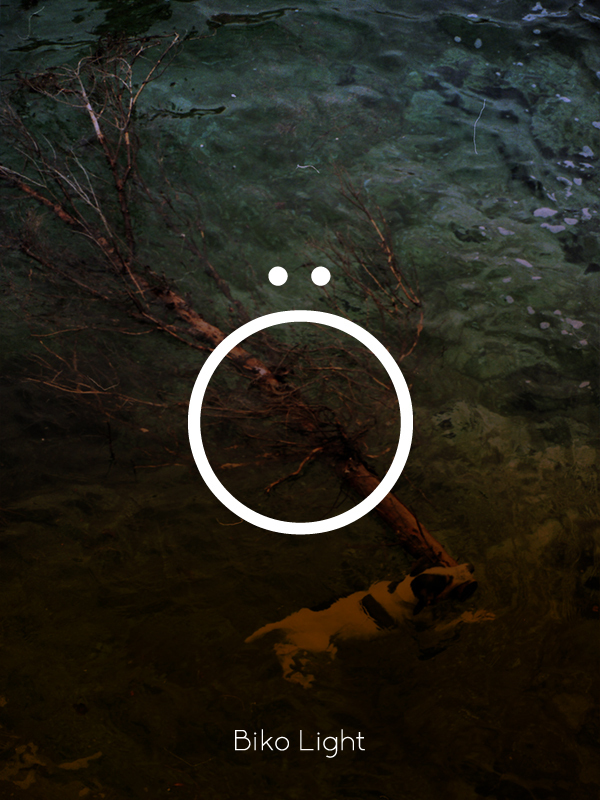
Biko Black by Marco Ugolini is a free heavy geometric sans serif with broad, assertive forms and a clean contemporary finish. Its capitals are strongly squared, but rounded joins and near-circular lowercase shapes soften the dense weight, with compact spacing giving the lettering a firm, continuous line.
Sports branding and children's entertainment are very different settings, yet the font's sturdy construction and open, friendly curves suit both. It also has the punch needed for posters and food packaging. The approachable geometry is especially apt for youth-focused brands and venues that want a substantial logo or upbeat campaign voice without borrowing the hard edge of an industrial grotesque.
Biko is now also available in Light. It is a geometric sans serif. The name is a tribute to Steve Biko, a South African anti-apartheid activist.